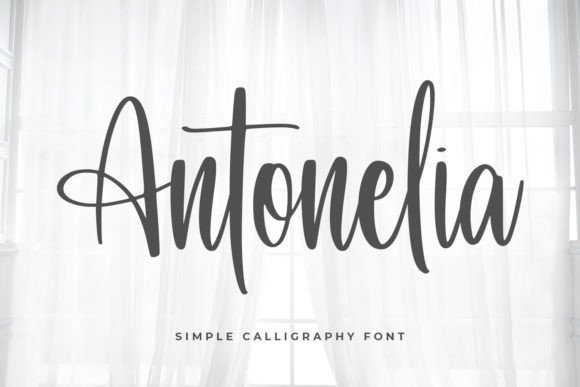
Introducing Antonelia Font, the ultimate choice for all your creative needs! Created by the talented Abodaniel, this captivating handwritten font is the perfect companion for adding a touch of elegance and charm to your projects. Whether you're designing a wedding invitation, crafting a memorable logo, or simply seeking to make a bold statement, Antonelia is here to elevate your creations to new heights.
With its beautiful script style, Antonelia Font exudes a sense of romanticism and sophistication. Its flowing and graceful letterforms add a unique touch to any design, making it ideal for a variety of purposes. Let your imagination run wild as you explore the endless possibilities this font offers.
Are you planning a dreamy wedding? Antonelia Font is the perfect match for your invitations, place cards, and thank-you notes. Its delicate strokes and intricate details will leave a lasting impression on your guests, setting the tone for a truly unforgettable celebration.
For those seeking a compelling logo that captures attention, Antonelia Font is a game-changer. Its versatility allows it to seamlessly blend with any brand, creating a distinctive and memorable identity. Stand out from the crowd and leave a lasting impression on your customers with a logo that speaks volumes about your business.
Looking to add a touch of inspiration to your social media posts or website banners? Antonelia Font's captivating presence will make your messages impossible to ignore. Whether you're sharing motivational quotes or promoting a new product, this font will effortlessly convey your message with style and flair.
Antonelia Font isn't just limited to digital designs. Bring your creativity to life with stunning t-shirt designs and tote bag prints that will turn heads wherever you go. Its unique aesthetic adds a personal and artistic touch to your fashion statements, making you the trendsetter among your peers.
As you embark on your creative journey, let Antonelia Font be your trusted companion. Its seamless integration with various design software makes it easy to use and ensures that your vision becomes a reality. Unleash your inner artist and let Antonelia Font transform your ideas into stunning masterpieces.